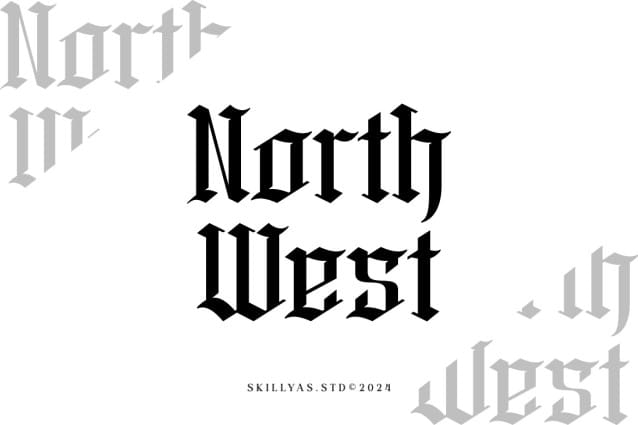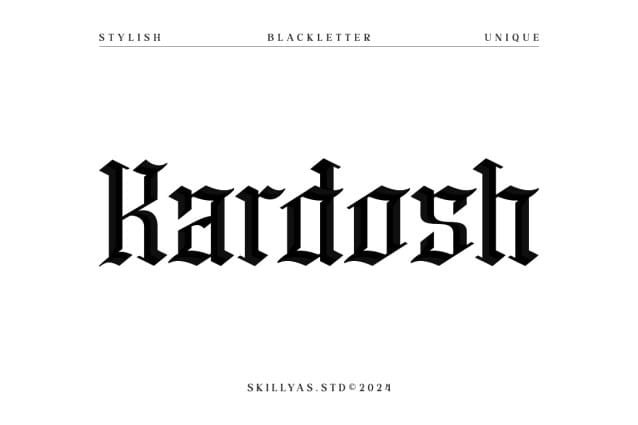
Kardosh Blackletter Font
Kardosh Blackletter Font is a Gothic Bold Font, a modern Gothic font that combines elegance and mystery. It is perfect for logos, posters, and branding with a unique, striking aesthetic.